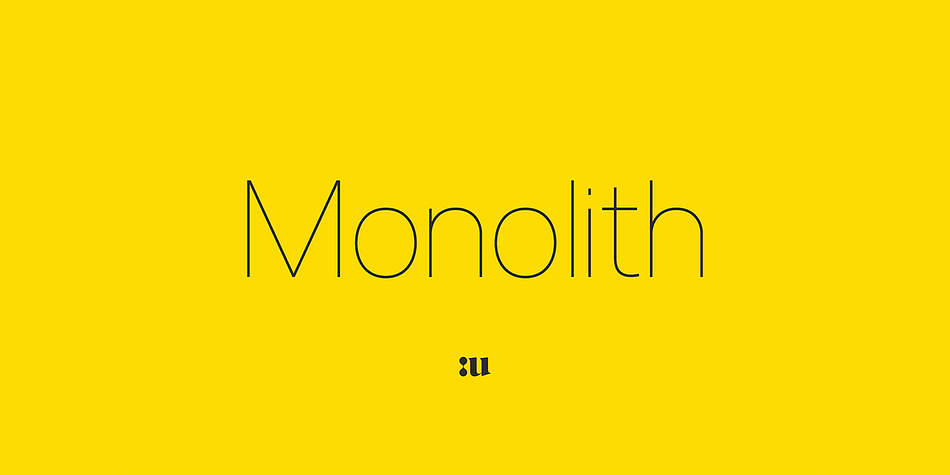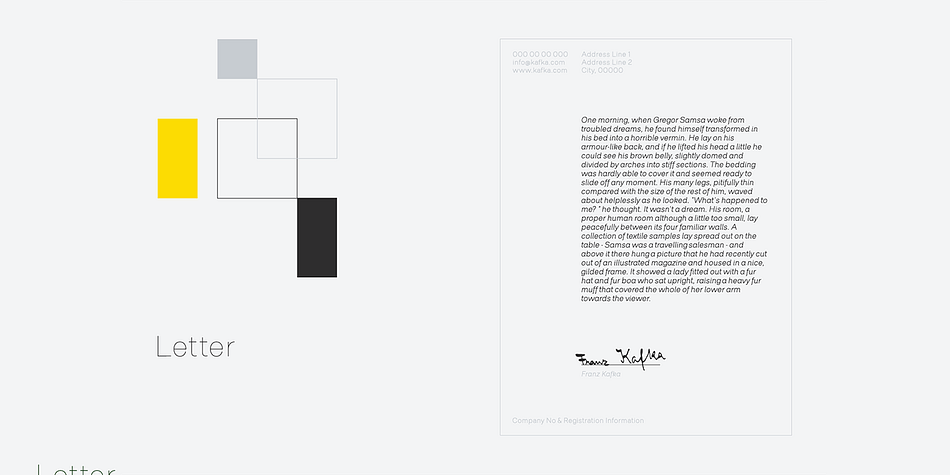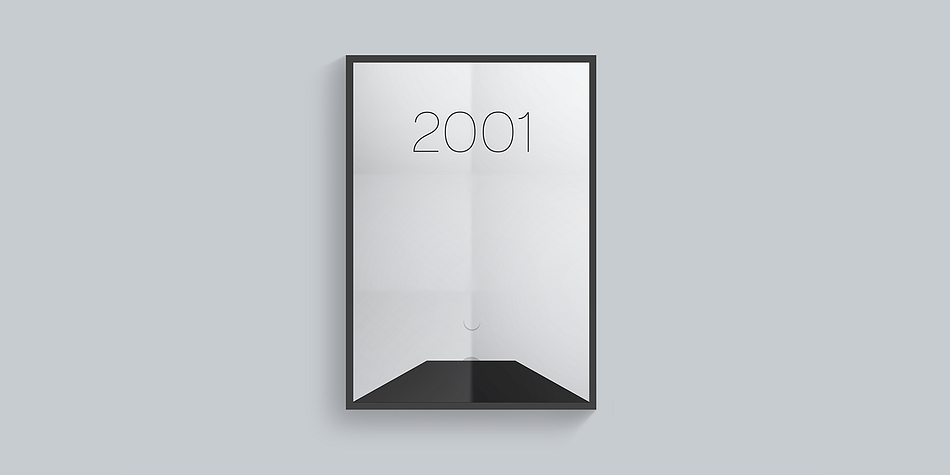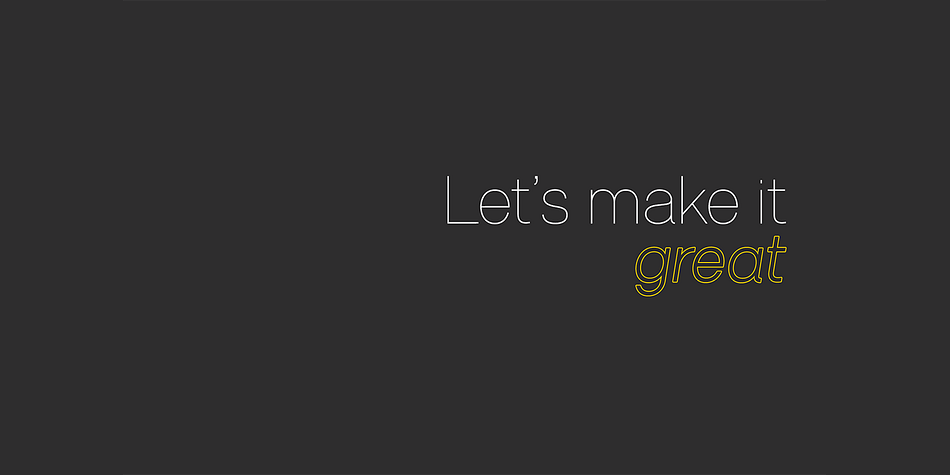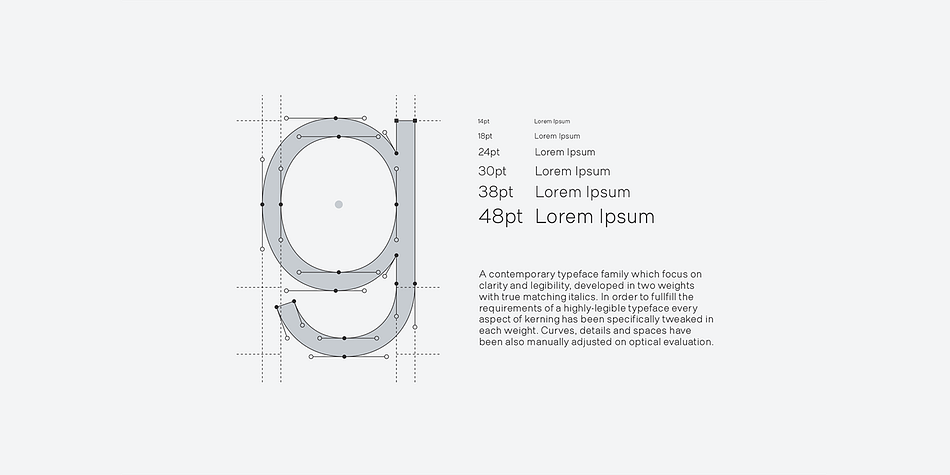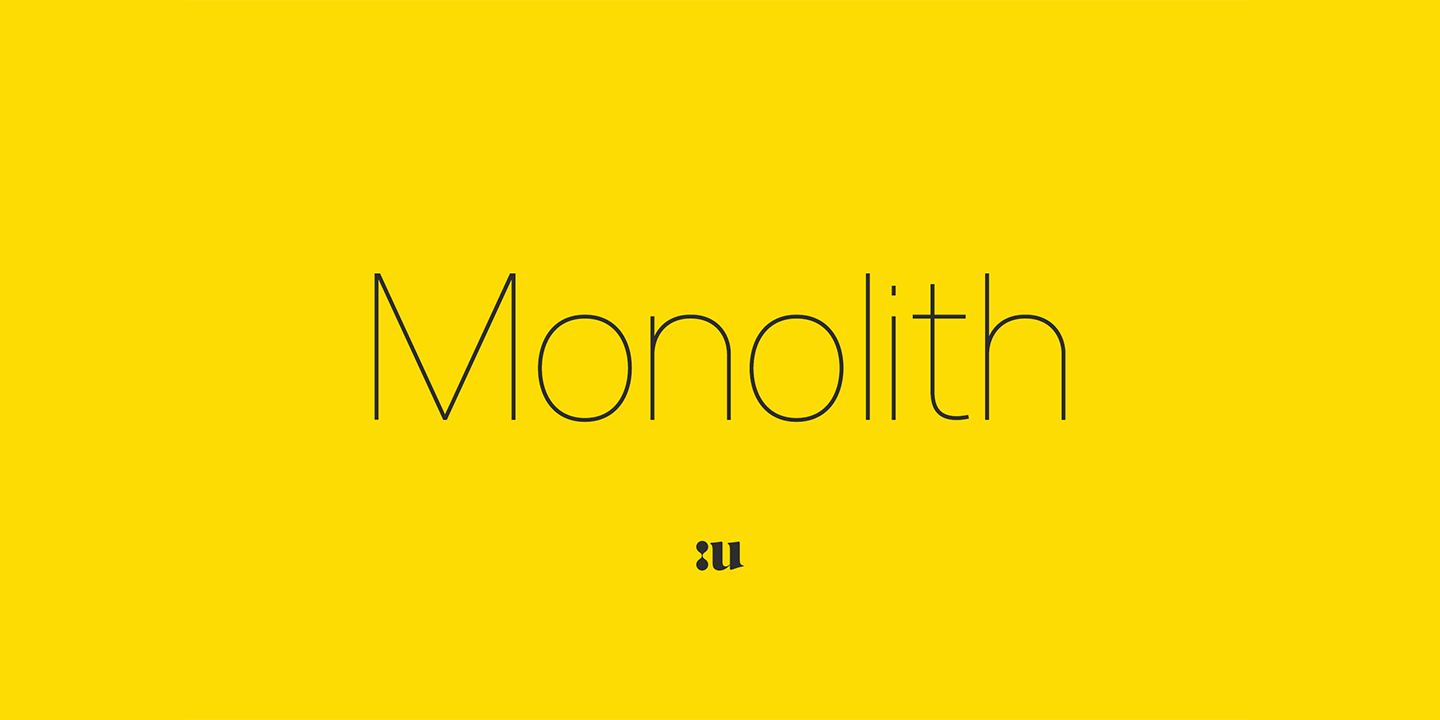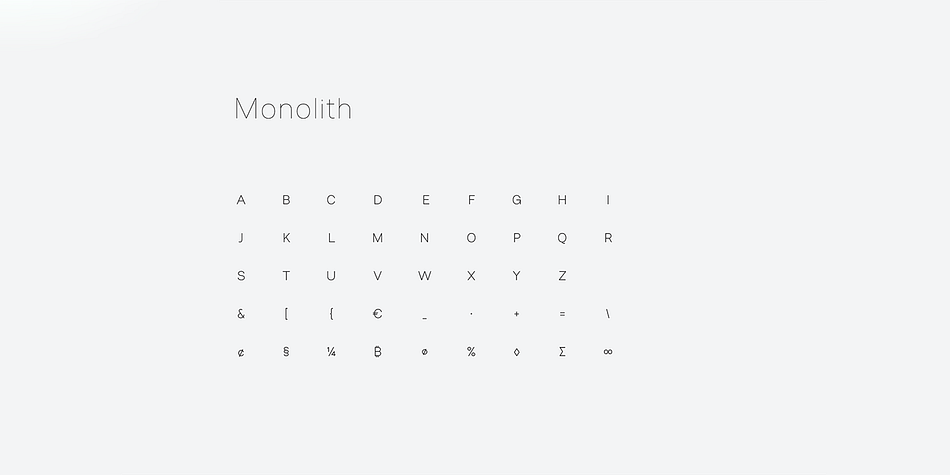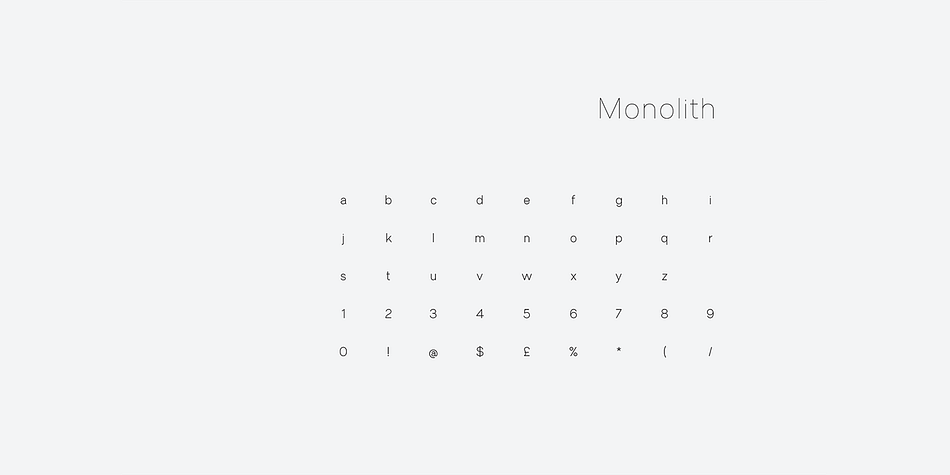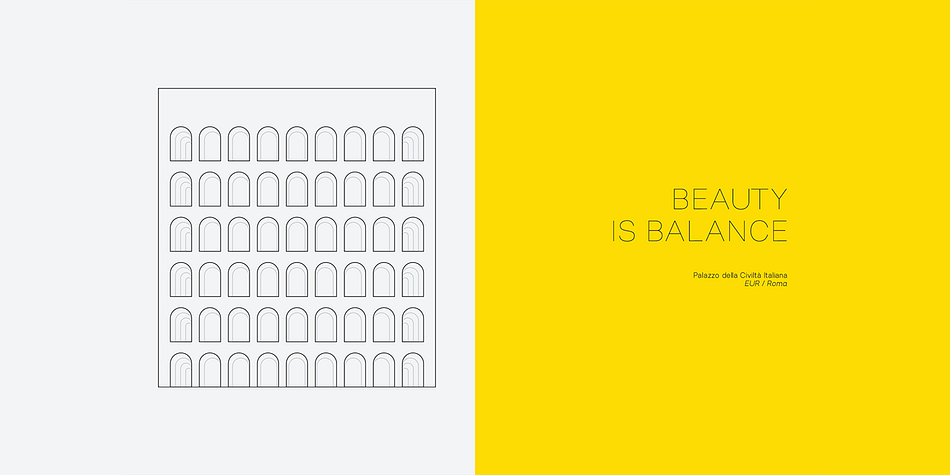
Monolith
Monolith is a sans serif font family. This typeface has four styles and was published by Unio Creative Solutions.
Introducing “Monolith” – a contemporary type system which focus on clarity and legibility, developed in two weights with true matching italics.
Monolith includes, as previously said, two contrasting versions: Light and Regular with corresponding true italics. This font family combine modernist shapes with slight grotesque touches. Each variant was designed with an attentive optical evaluation; curves, details and spaces were specifically tweaked to better suit the requirements of a highly-legible typeface.
The end result is a family with full multilingual capabilities and a coverage of several languages based on the Latin alphabet; Monolith aims to become your next typographic companion.
- Multi language support (Central, Eastern, Western European Languages and Greek)
- OpenType features